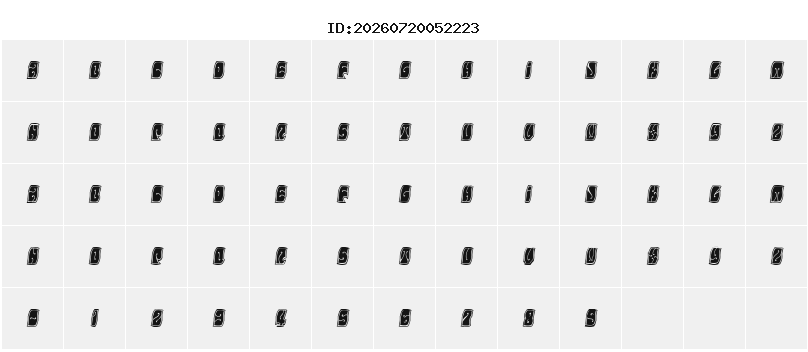
• Font Name: Electorate Blue
• Designer: Ray Larabie
About Electorate Blue.ttf
Electorate Blue.ttf is a modern, elegant sans-serif font designed for ultimate readability and visual harmony. Perfect for branding, headlines, web design, and print materials.